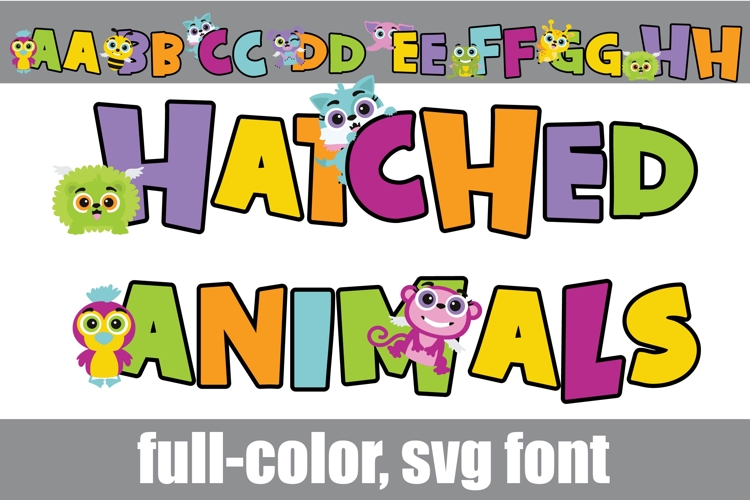
Hatched Animals Color Font
This full-color, whimsical font is a fun sans serif with adorable hatched animals on the uppercase. There is an alt case of additional colors of each letter that you can access through your system's character map.